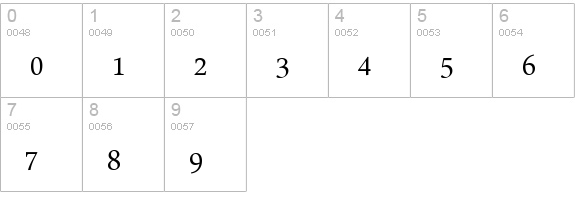
Arabic Typesetting font is a stunning and elegant typeface designed specifically for showcasing Arabic script in a visually appealing manner. This font features intricate details and exquisite curves that make it perfect for various design projects, from print materials to digital media. With its clear legibility and classic style, Arabic Typesetting font adds a touch of sophistication to any text it is applied to. Best of all, Arabic Typesetting font is available for free download at FontsMarket.com. This means that you can easily access and use this beautiful font for your personal and commercial projects without any cost. Whether you are creating invitations, posters, or website designs, Arabic Typesetting font will surely elevate the visual impact of your work with its timeless charm and distinctive Arabic aesthetic. Download Arabic Typesetting font today and add a touch of elegance to your designs!